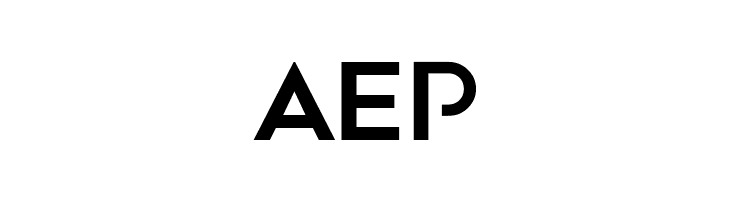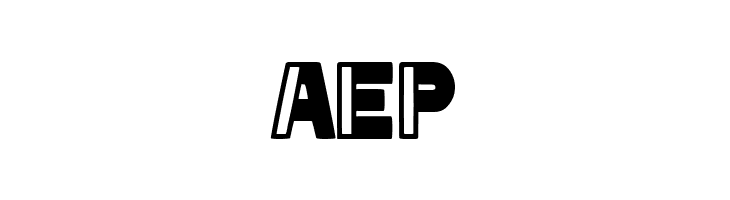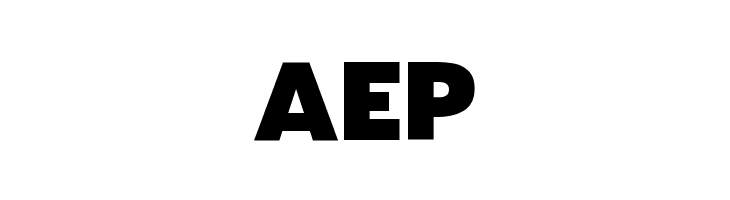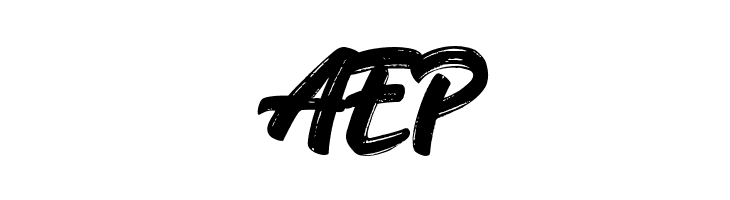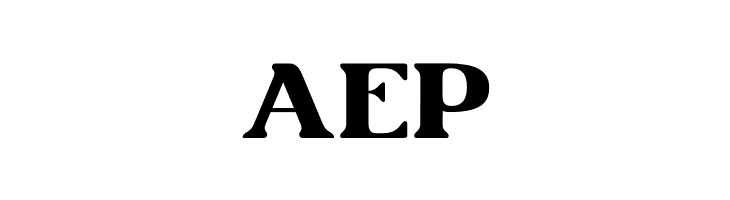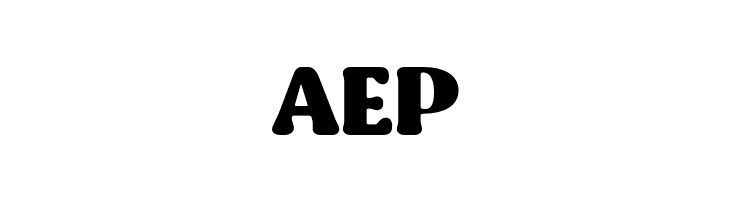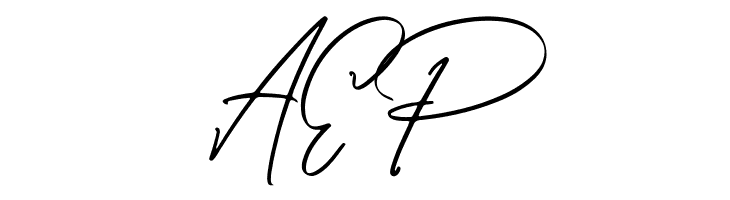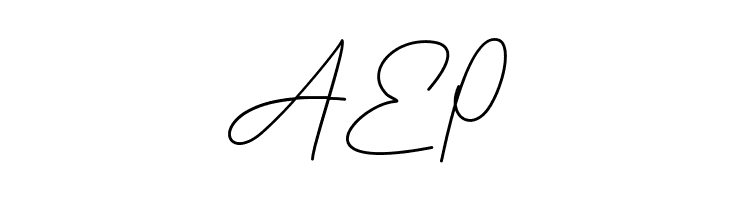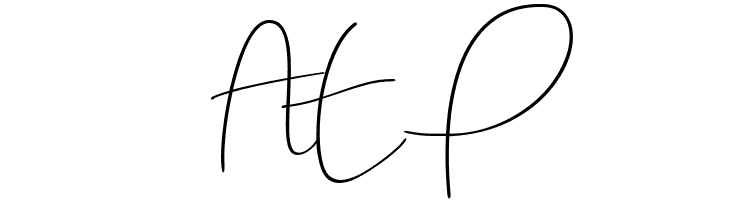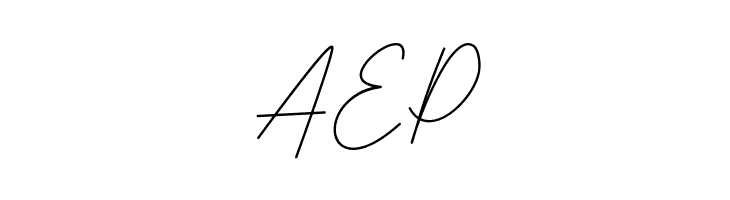
• Captain Redemption
A bold, brush-style font with dynamic, slanted characters.
• Captain Stencil
A bold, stencil-style font with geometric shapes and cut-out sections.
• CaptainMarvel
A bold, modern sans-serif font with clean, geometric lines.
• CaptainSwabbyNF
A bold, playful font with a three-dimensional outline and geometric style.
• CaptivateDEMO
A graceful and elegant script font with fluid, connected letters.
• Captura Heavy Demo
A bold and impactful font with thick strokes and a strong presence.
• Capture Moment
A sophisticated, elegant script font with fluid, cursive strokes.
• CaptureMoment
An elegant and flowing script font with interconnected letterforms and graceful curves.
• Captures
A delicate, flowing script font with elegant cursive letterforms.
• CapucheTrial-Black
A bold, rounded font with a playful and robust appearance.
• CAPussyGalore
A bold, geometric sans-serif font with a modern and clean design.
• CAPUT_TRIAL
A bold, textured font with a hand-drawn, chalk-like appearance.
• Car Wash
A bold, grungy font with a distressed, textured appearance.
• çar_1
• Caracas
A modern, geometric font with clean lines and rounded edges, perfect for a futuristic look.
• Caracas
A modern, geometric font with rounded edges and a sleek design.
• Caracas Bold
A bold, modern font with a geometric and slightly rounded design.
• Caracas Bold Italic
• Caracas Italic
A modern, italicized font with a sleek and dynamic style.
• Caracas Light
A modern, geometric font with clean lines and a sleek, condensed style.
• Caracas Light Italic
A sleek, modern, light italic font with medium contrast and a streamlined appearance.